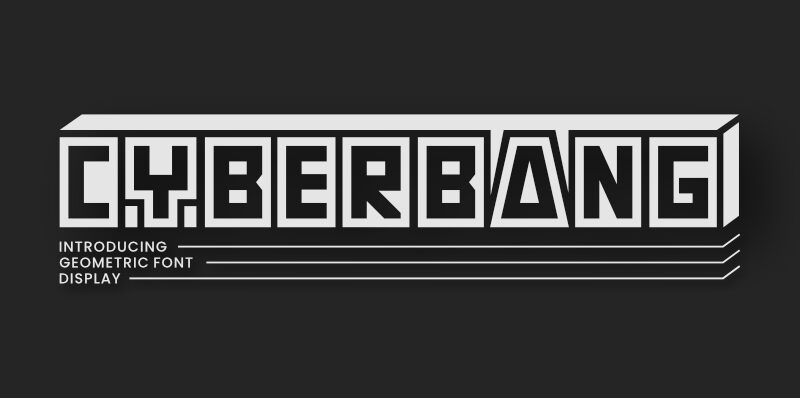
Cyberbang font designed by Eka Rifqi Setiawan is a free sans serif font with a modern and cutting-edge style. The font embodies geometric, bold, and blocky shapes that give a futuristic and industrial feel to any design. With an edgy and high-impact aesthetic, Cyberbang is an ideal choice for projects that aim for a technological and dynamic appearance.